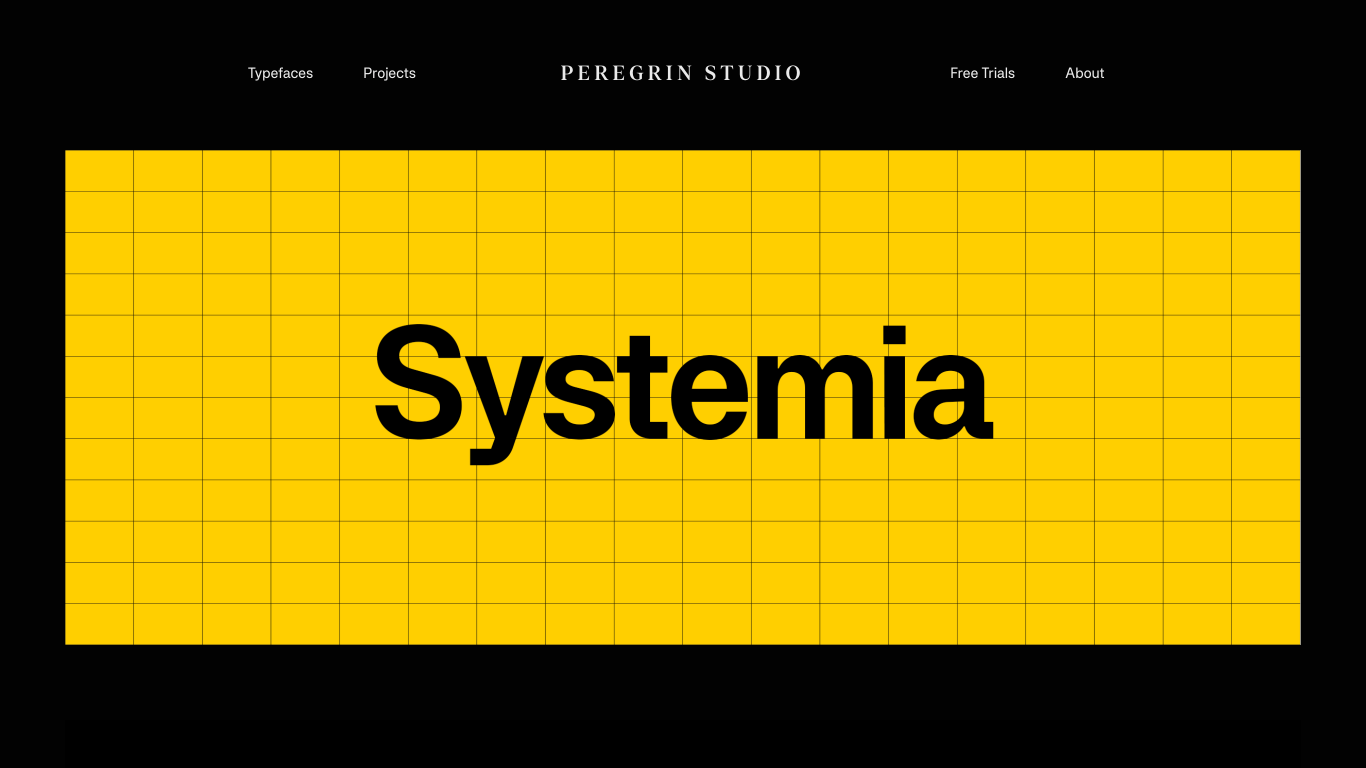
Peregrin Studio
United Kingdom
2020
Peregrin Studio was founded in 2020 by creative duo Tom Watkins and Ellen Luff as a nomadic, location-independent type foundry and design studio rooted in London. Notable work includes the award‑winning typefaces Denton and Systemia®, the latter blending Swiss grotesque precision with 80s‑era tech aesthetics and earning recognition in the design press. The studio’s client list is impressive, encompassing global brands such as Apple, Adidas, NASA, Netflix, ESPN, Universal, JD, Sony Records, Innocent Drinks, NBC, Pizza Hut, SkyTV, Arla, and Red Bull. A unique feature of the foundry is its “story‑led” approach to type and visual identity, combining disciplines like typography, art direction, identity design, image making, and even advertising, all delivered in a bold, traveling studio format. In essence, Peregrin melds a deep narrative sensibility with technical excellence—creating fonts and identities that not only look distinct but also carry meaningful stories, resonating across industries and cultures.